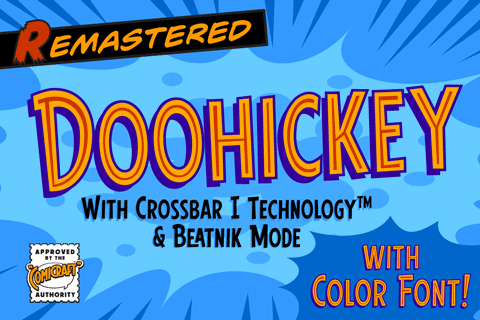
Doohickey
So your widget's stuck between the framistat and the whatchamacallit, there's a spanner in the works and your avengers just won't assemble.
If you want to get any more work done, you know you're gonna have to hook the hoojamajigger up to the doohickey!
Three weights (Solid, Inline & Outline) with upper & lowercase characters, Western & Central European international characters and Cyrillic Characters.